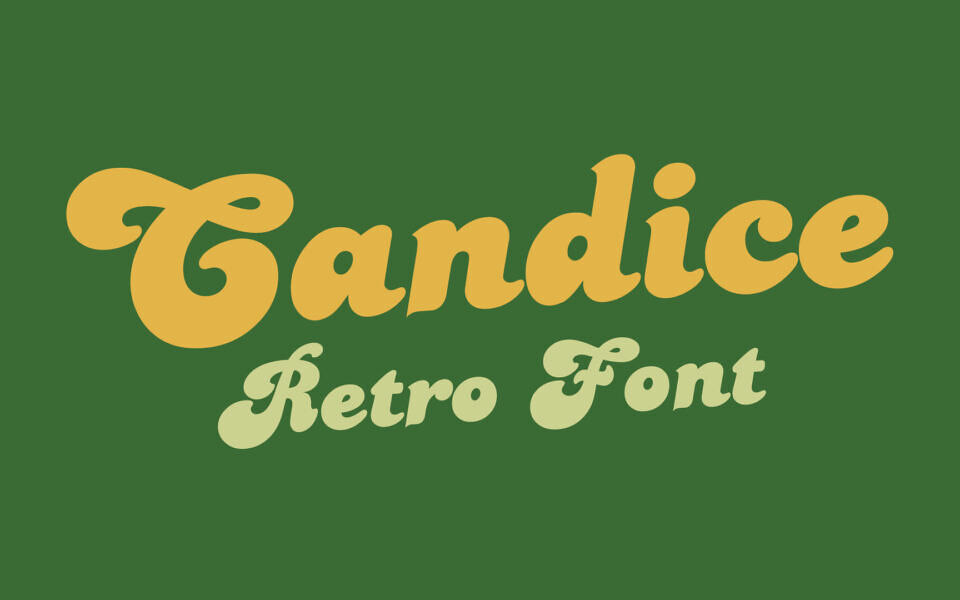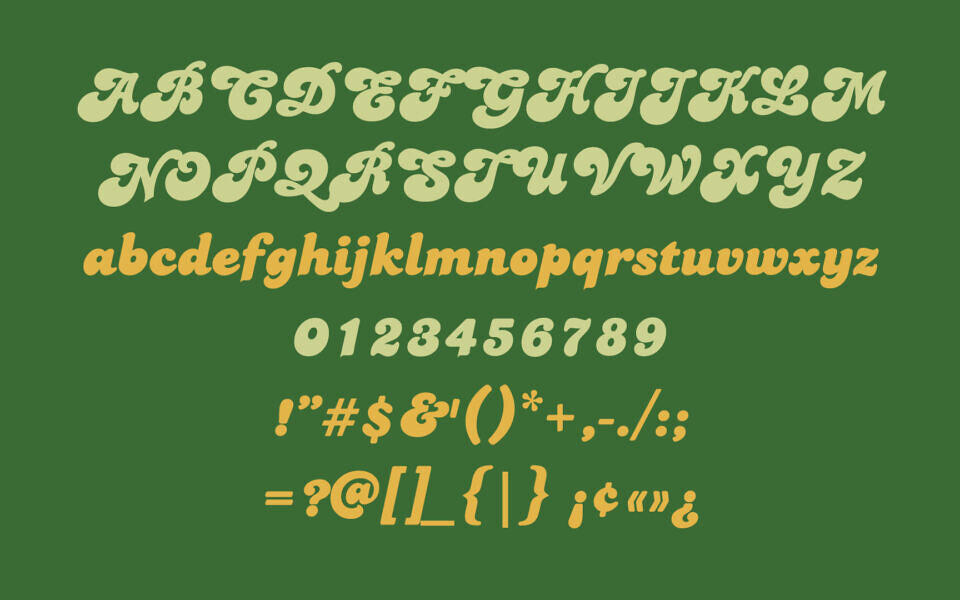
Alan Meeks designed the Candice typeface in 1976. A groovy swirl of a font, Candice looks like an ice cream sundae topped with whipped cream.
Candace is often seen on album covers, and has come to be associated with innumerable party hits from the 1970s. One thing is for sure: Candice is a child of it’s times – flashy, lively, and fun!